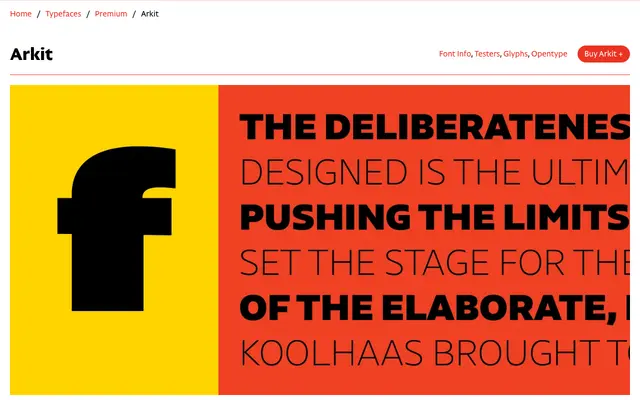
Arkit
CAST · Erasmo Ciufo · 2012
Arkit specimen from CAST
A geometric sans by Erasmo Ciufo with quietly organic details, spanning ten weights from Hairline to the display-focused Bomb.
Designed between 2012 and 2019, it pairs a constructed, geometric silhouette with subtly tapered strokes that soften its mechanical qualities. A large x-height makes it a practical choice for continuous text and small-scale setting, while the heaviest cuts — ExtraBold, Heavy and Bomb — are conceived explicitly for signage and headline work. The ten-weight range is notably broad for a single-width family with no italic complement.
Described by CAST as a constructivist sans with humanist qualities; its geometric structure is tempered by slightly tapered strokes and an organic rhythm that place it between the geometric and humanist sans traditions.